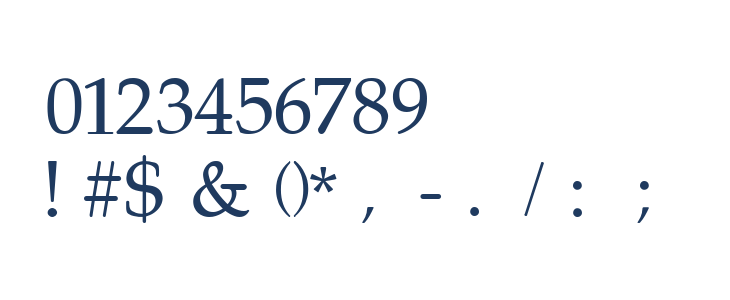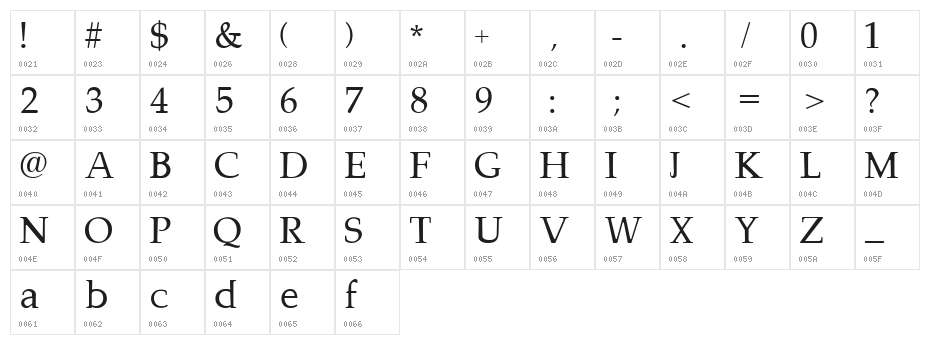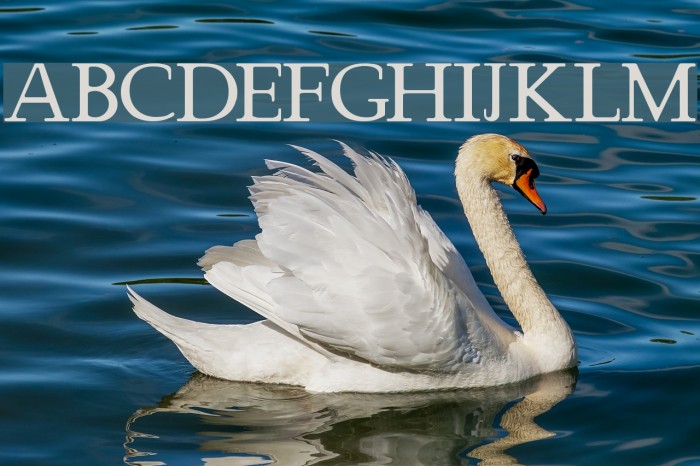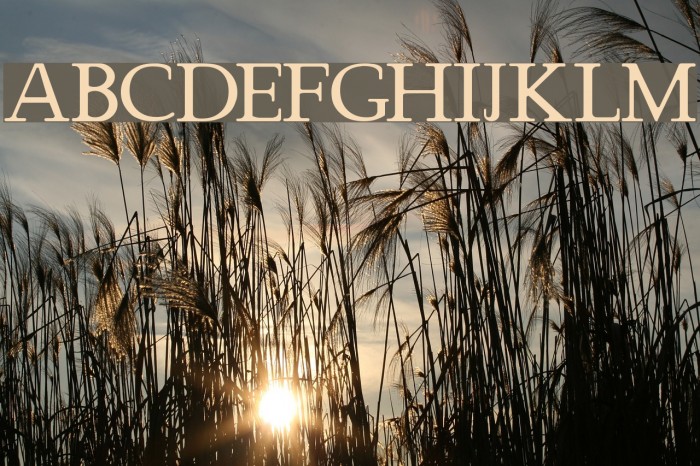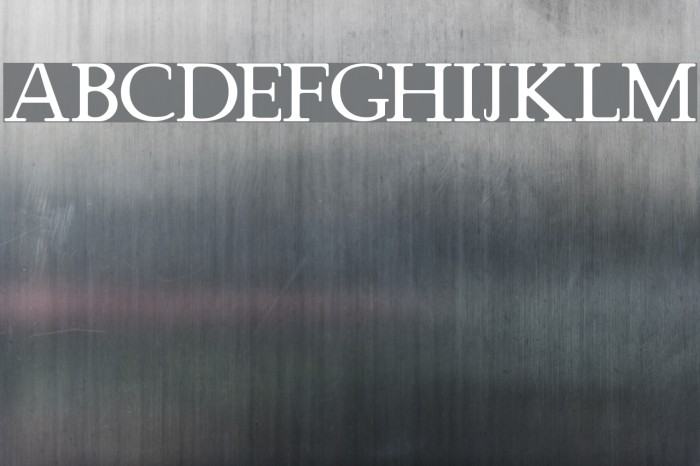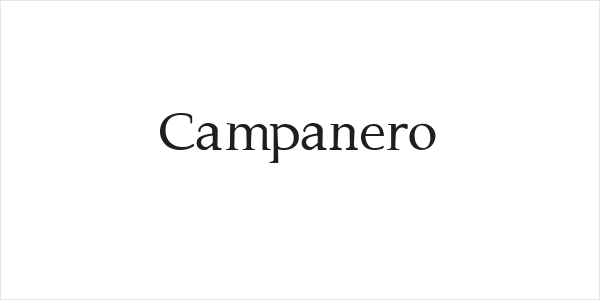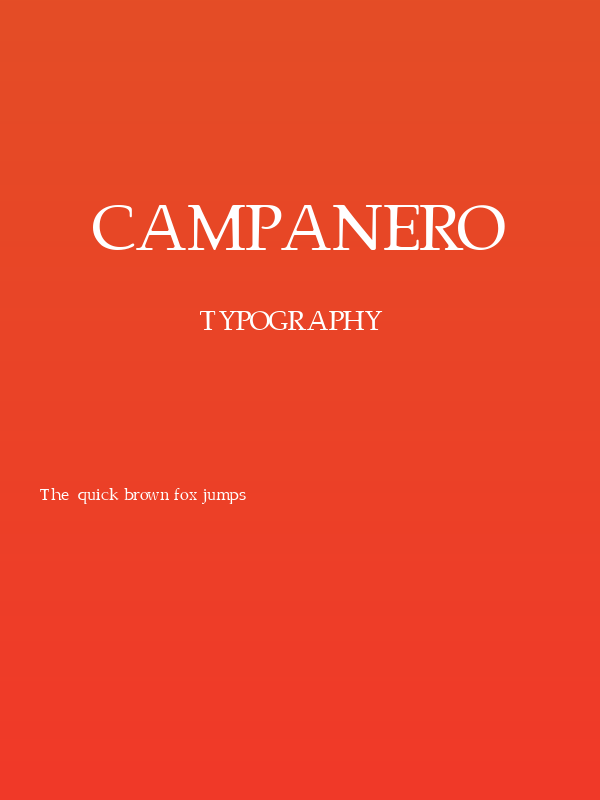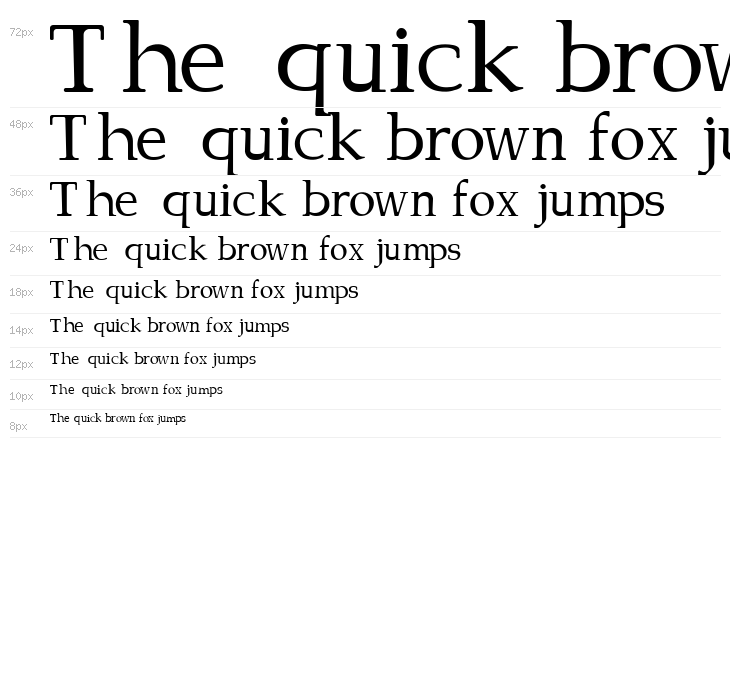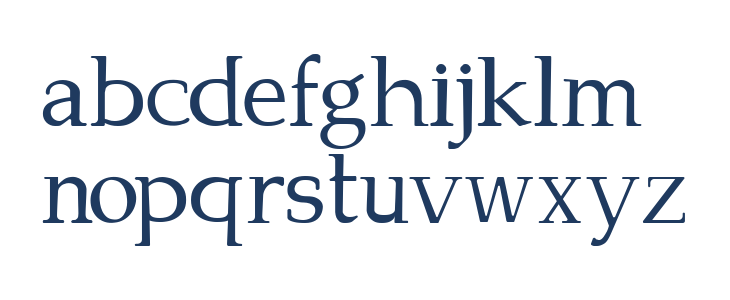
Campanero Font
Campanero Description
This font exhibits a classic serif style with elegant and refined strokes. The uppercase letters are bold and commanding, while the lowercase letters maintain a delicate balance with their slightly rounded forms. The numerals are clear and distinct, making them suitable for both formal and casual settings. Special characters are well-integrated, maintaining the font's overall aesthetic. The serifs are pronounced, adding a traditional touch, yet the overall design feels modern and versatile. The spacing between characters is consistent, ensuring readability across various applications.